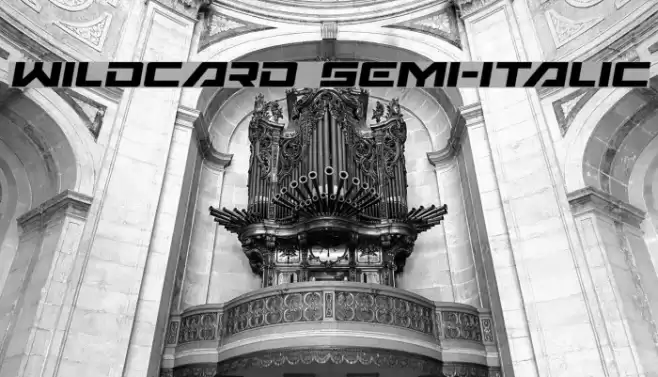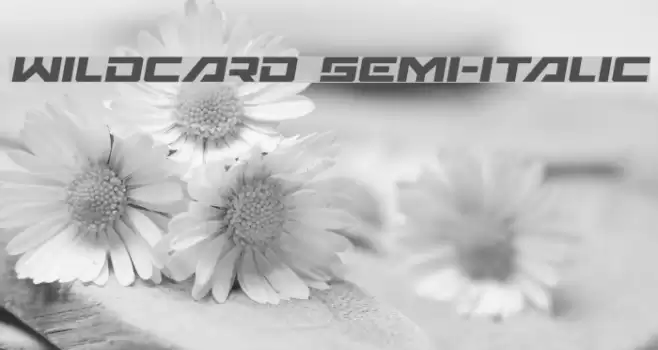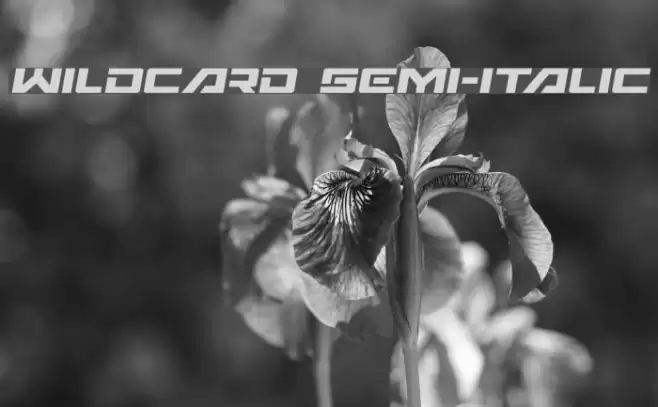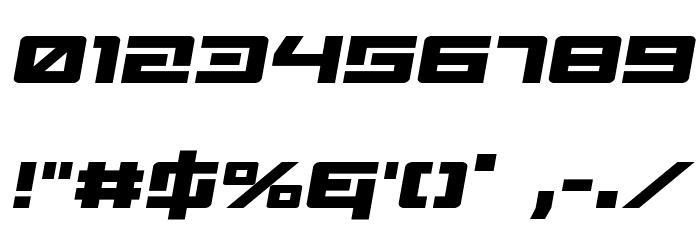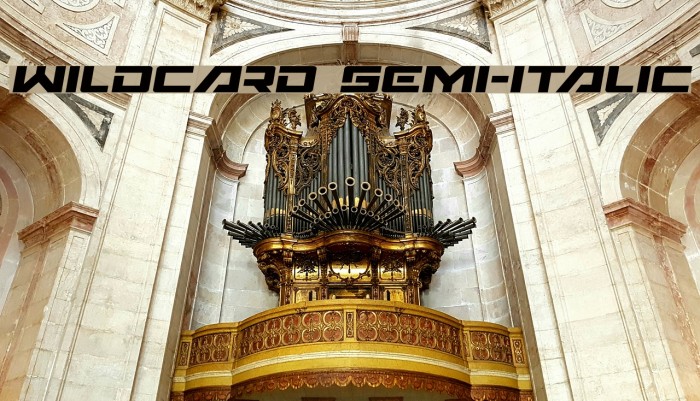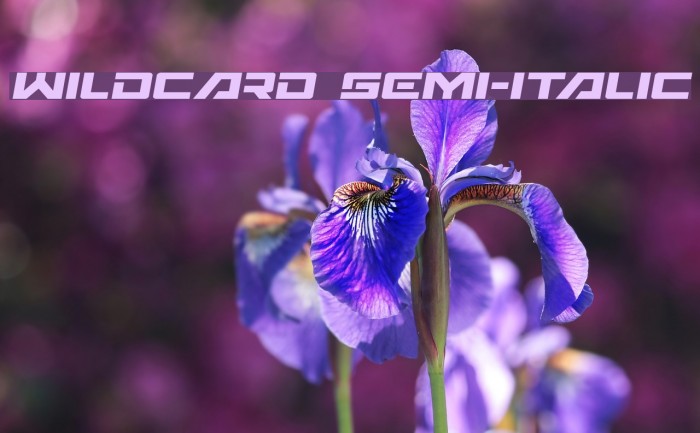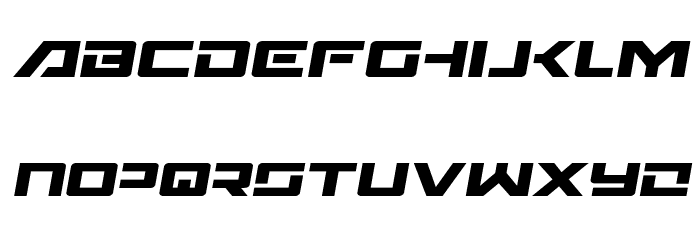
Wildcard Semi-Italic Font
Wildcard Semi-Italic Description
This font features a bold and angular design with a futuristic and dynamic appearance. The characters are slightly italicized, giving them a forward-leaning stance that suggests movement and speed. The geometric shapes and sharp edges create a modern and edgy look, making it suitable for projects that require a strong visual impact. The uppercase and lowercase letters maintain a consistent style, with the lowercase being slightly smaller but equally bold. The numbers and special characters are designed to match the overall aesthetic, ensuring uniformity across all text. This font is ideal for creating attention-grabbing headlines, logos, and branding materials that need to convey a sense of innovation and modernity.
A bold, angular, and slightly italicized font with a futuristic and dynamic style from Uncategorized fonts.
- Proposed Projects: Ideal for technology branding, sports team logos, video game titles, and sci-fi themed designs.